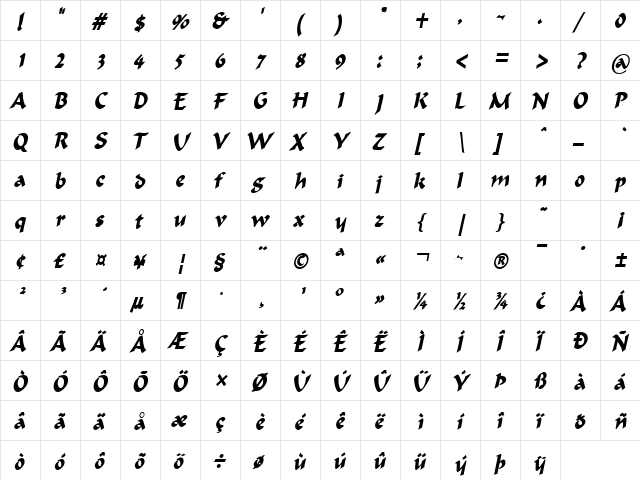
FlatBrush-Condensed Bold Italic Font Preview
Design Context for FlatBrush-Condensed Typeface
FlatBrush-Condensed brings a calligraphic fluidity to the page — its connecting strokes and expressive curves give it an unmistakably human quality. The heavy weight commands attention and anchors typographic hierarchies.
Font Pairing: Combine FlatBrush-Condensed with a simple geometric sans for maximum contrast — the tension between flowing curves and clean structure is a classic typographic pairing.
Pro Tip: Pair FlatBrush-Condensed with a clean sans-serif for supporting text. The contrast between fluid script and geometric structure creates an elegant typographic hierarchy.